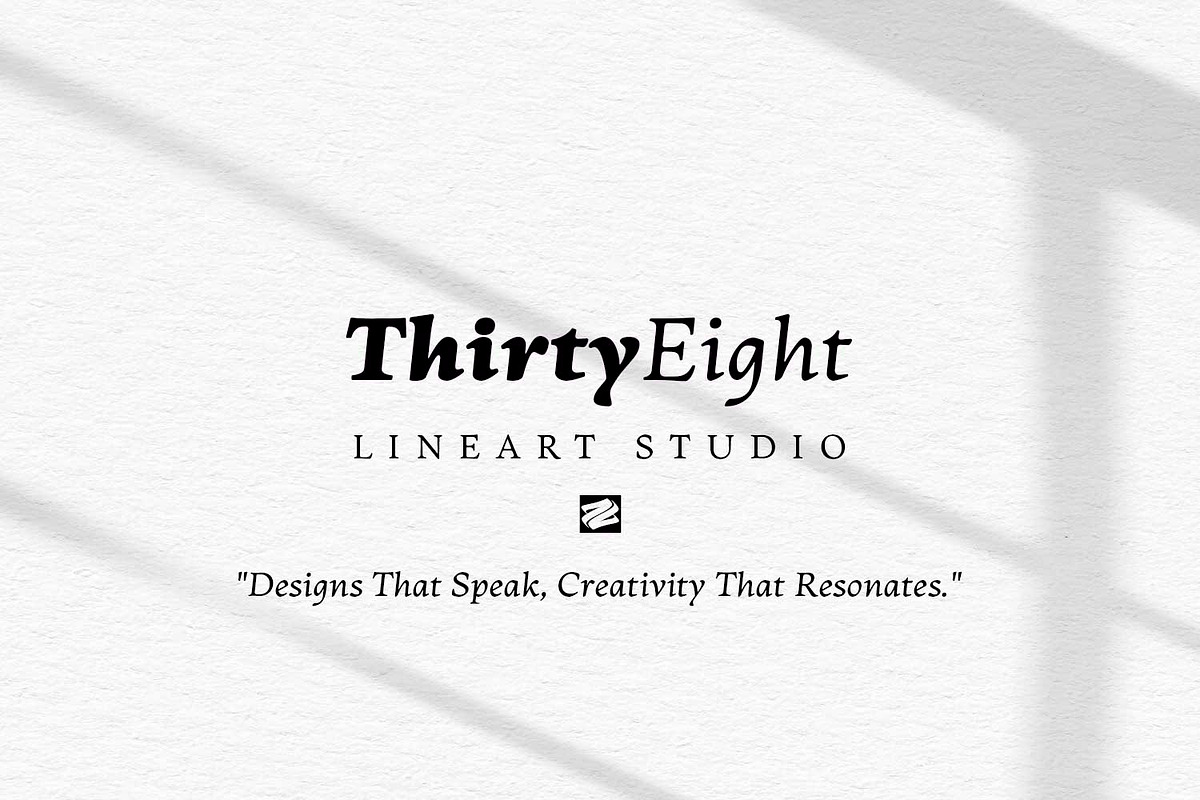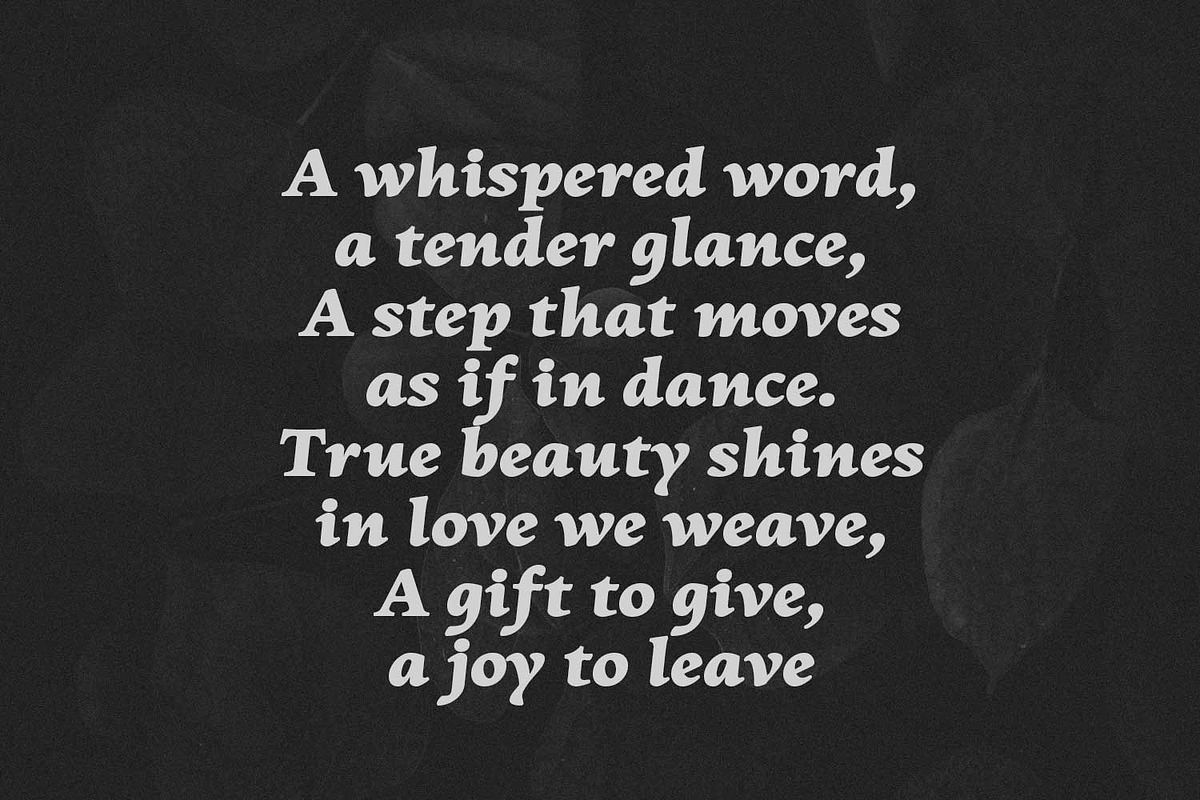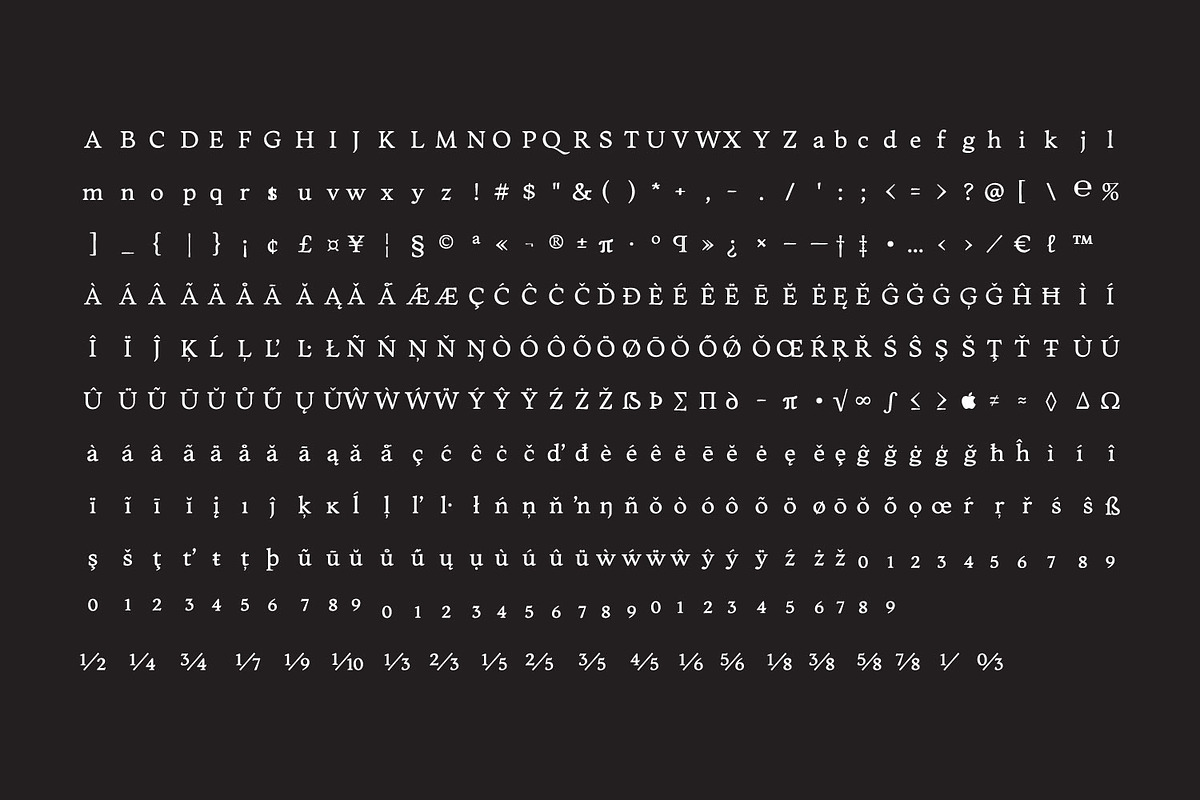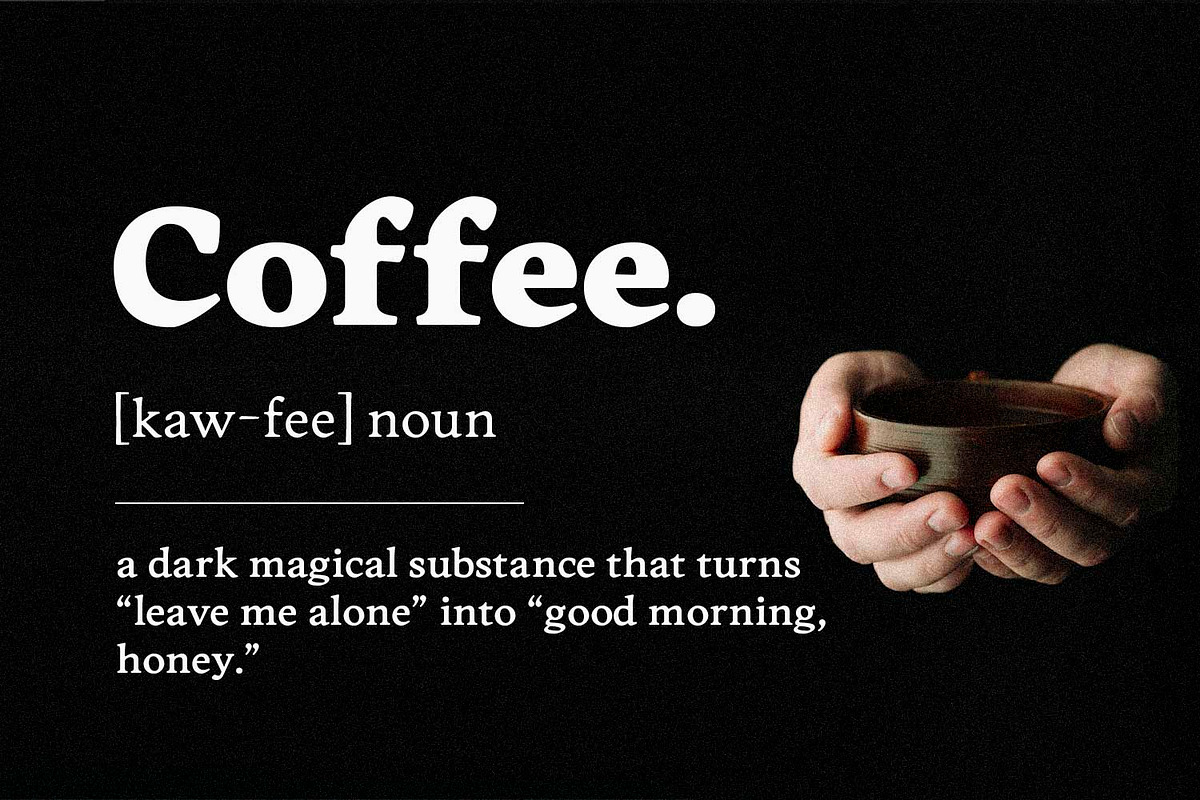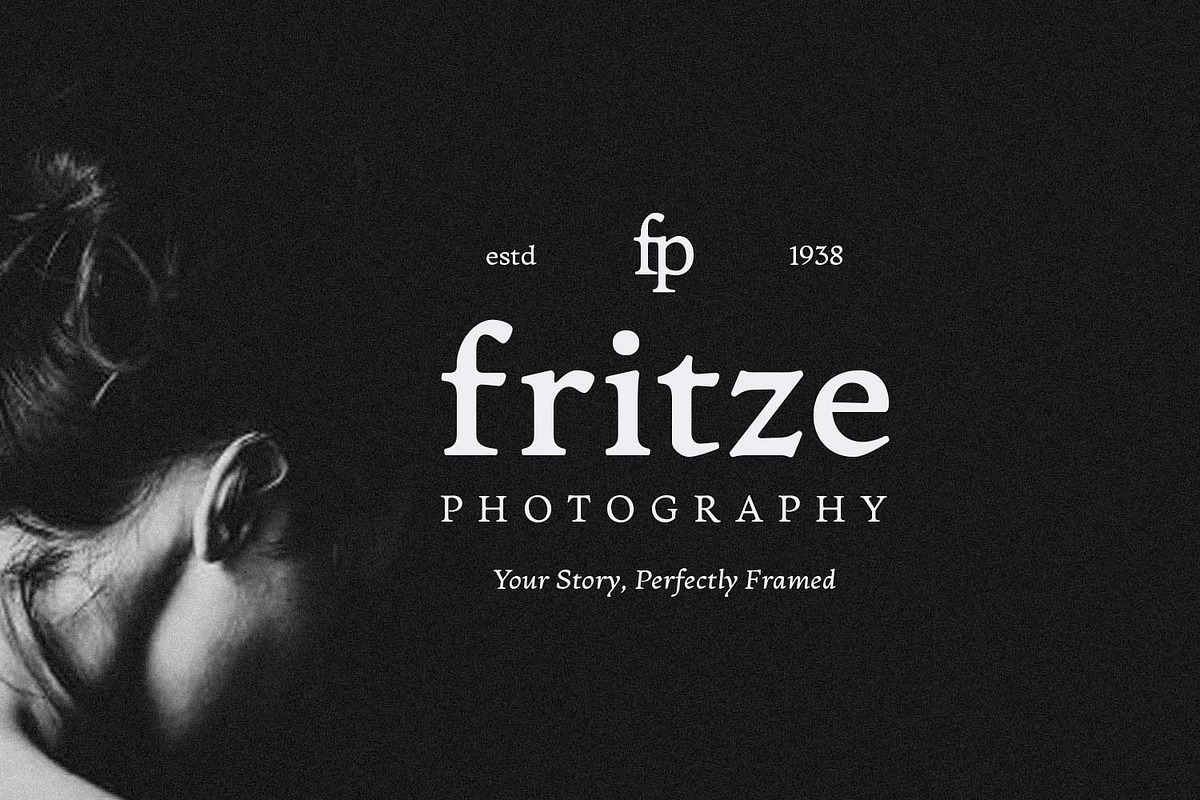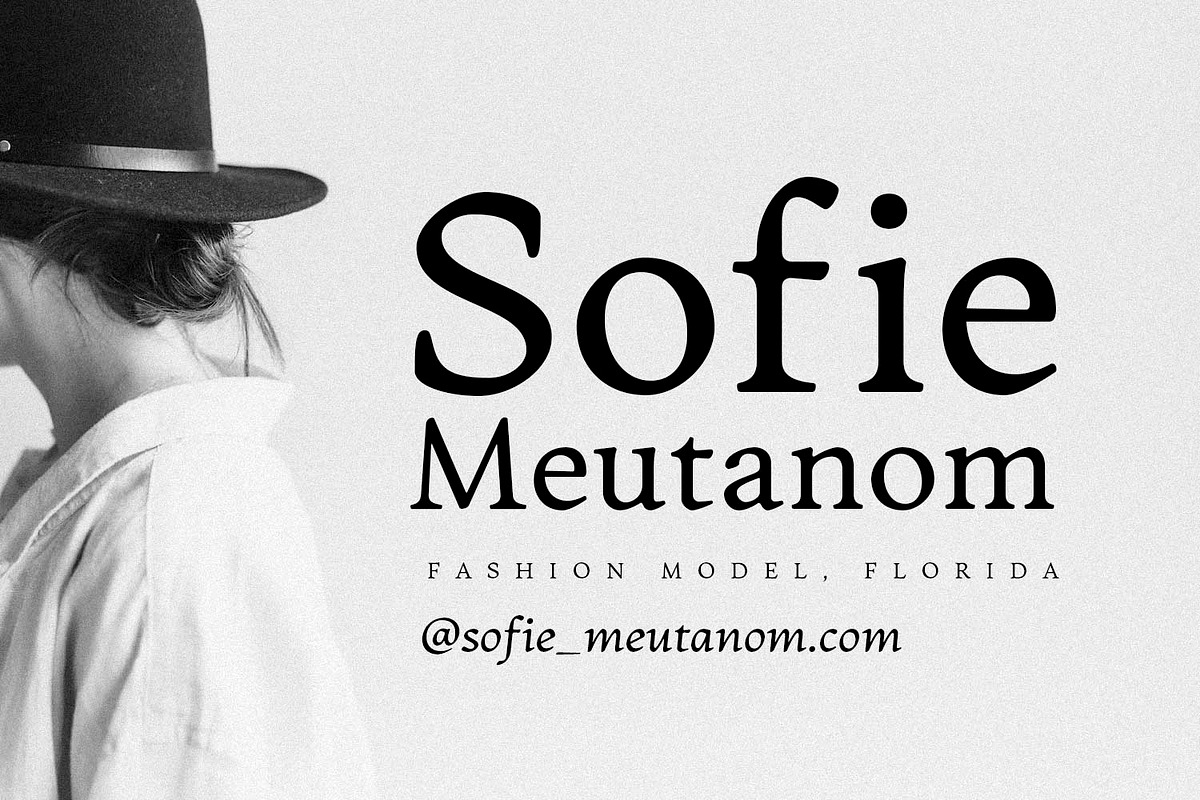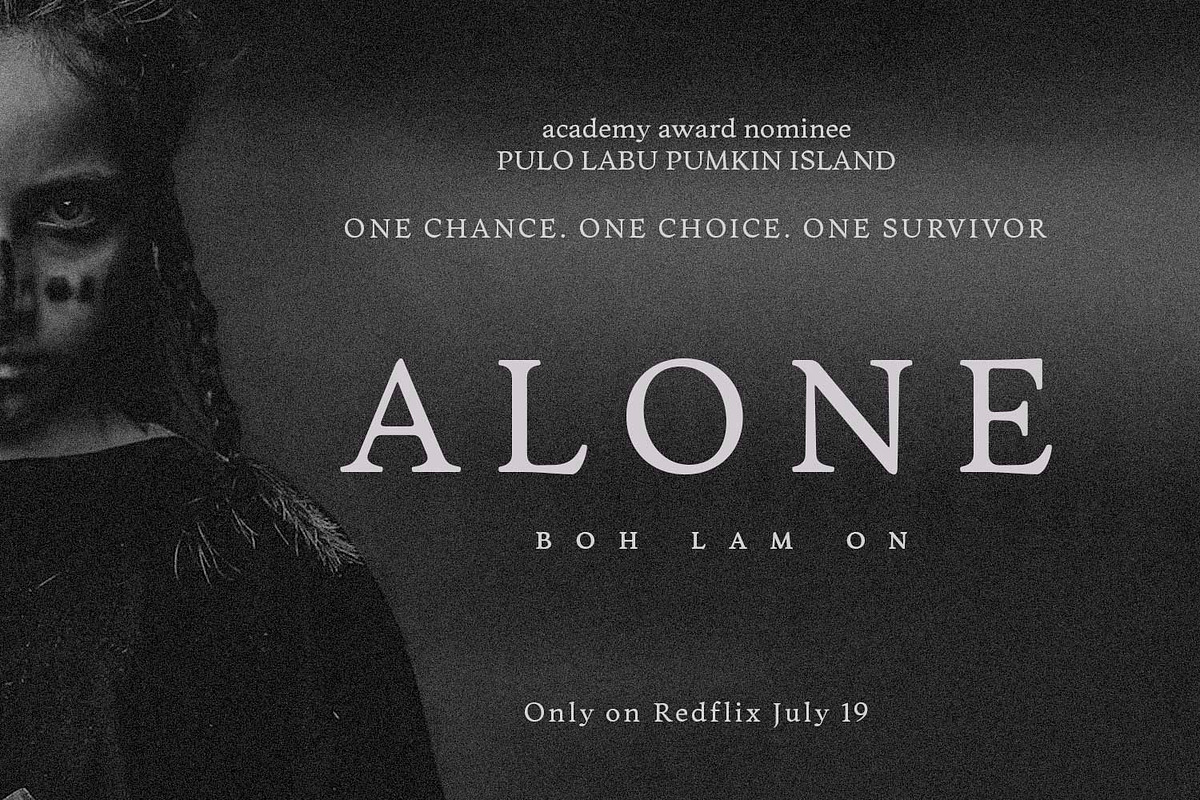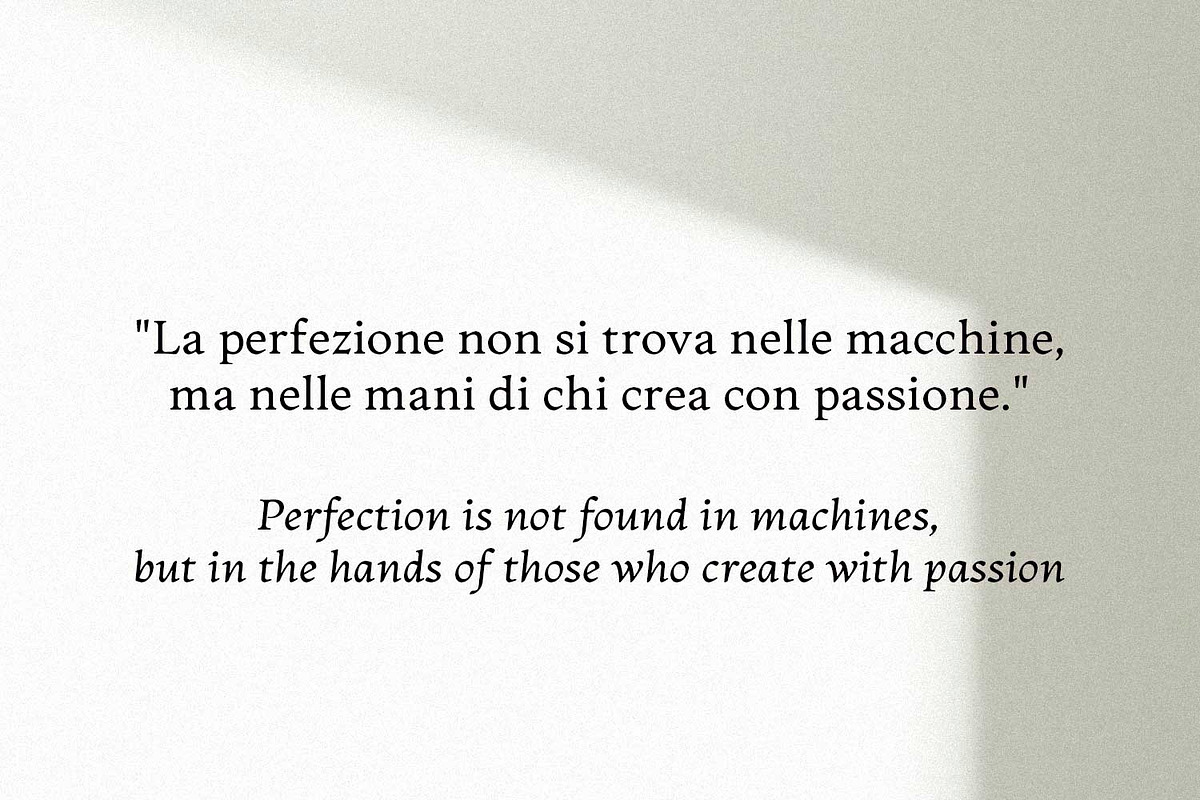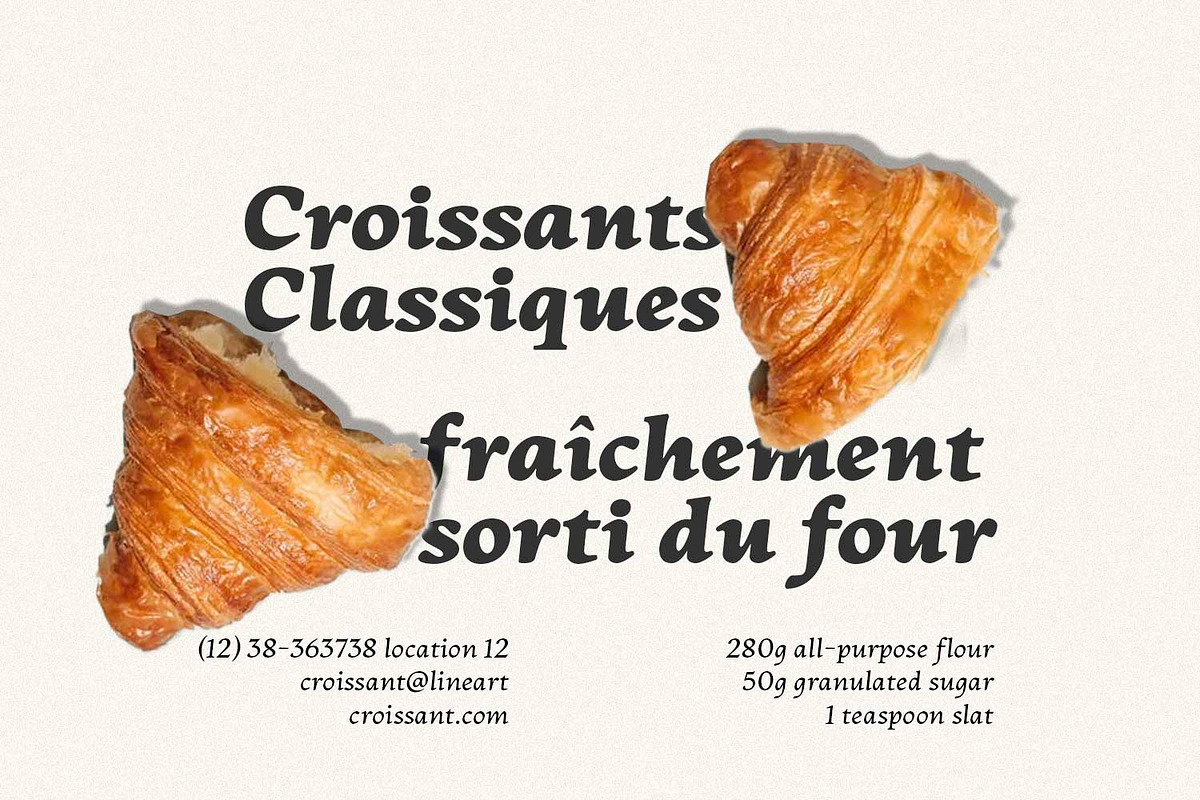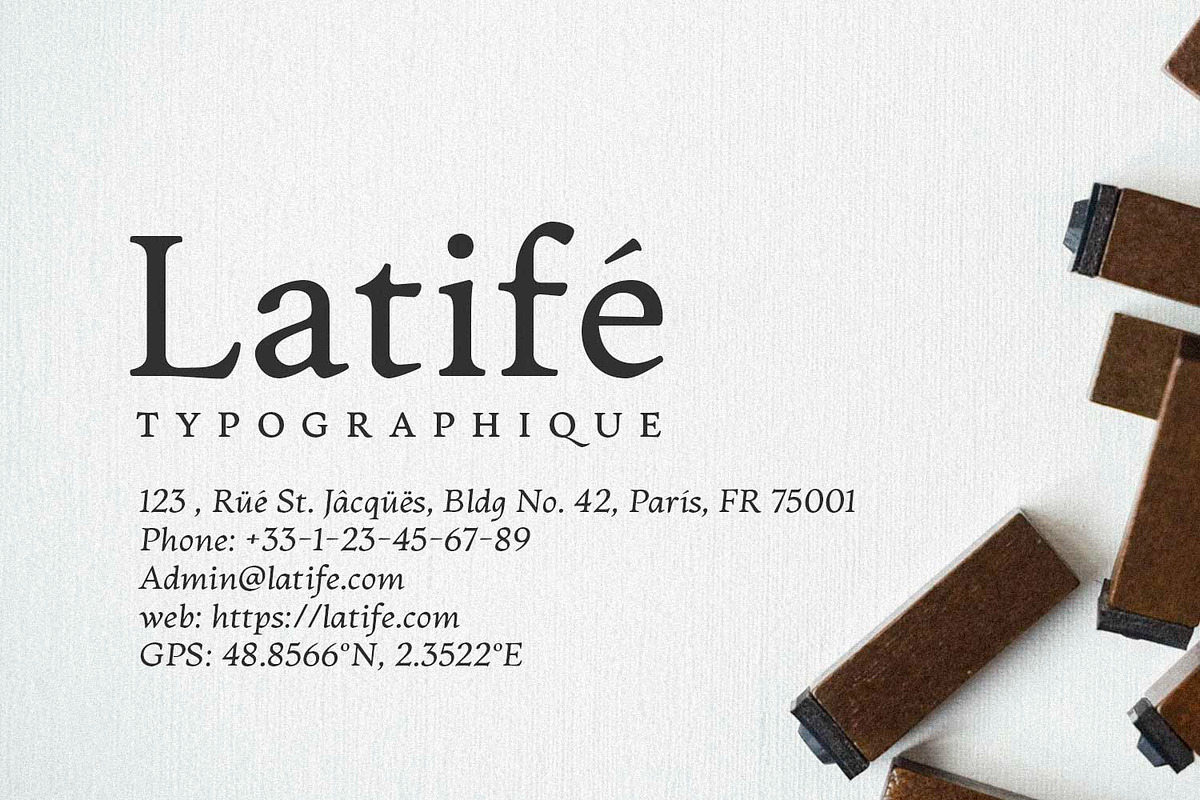
Rozak - Soft and Stylish Serif Font
Rozak is a soft, stylish, and approachable serif font that balances elegance and warmth, making it ideal for sophisticated branding and editorial work. Featuring six weights; Regular, Medium, Semibold, Bold, Extrabold, and Black - a long with true italics that bring rhythm and personality, Rozak offers refined letterforms that enhance readability and visual appeal. Designed for versatility, its delicate curves and expressive italics make it perfect for high-end design projects, from branding to publishing, ensuring a timeless and polished aesthetic.